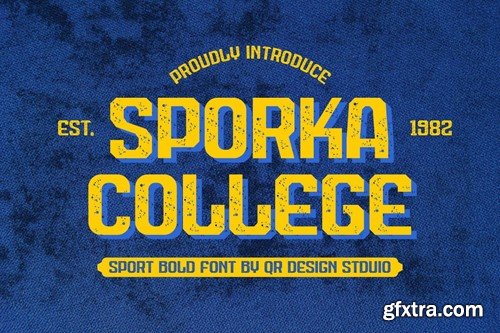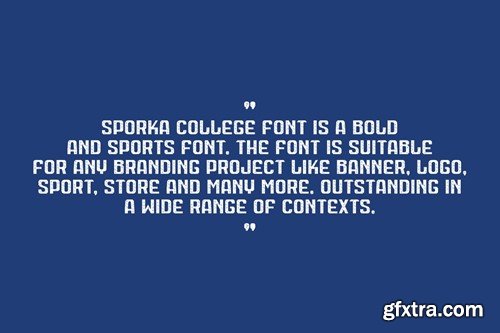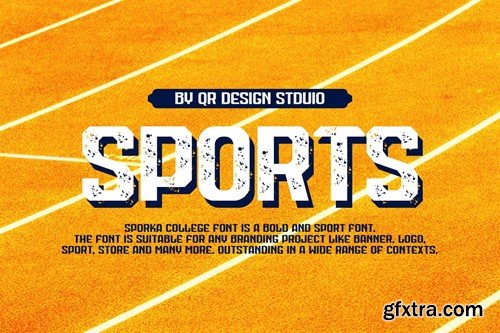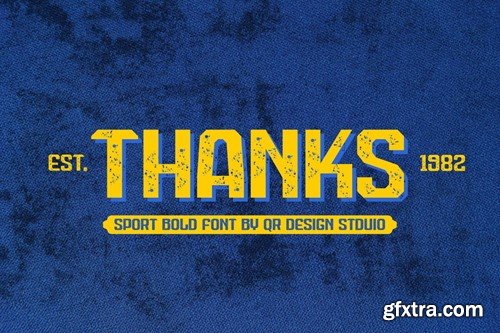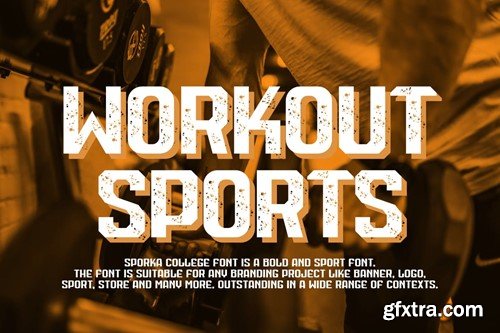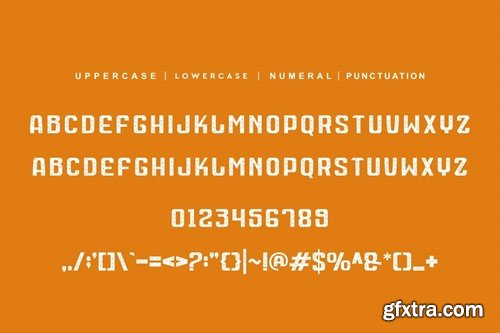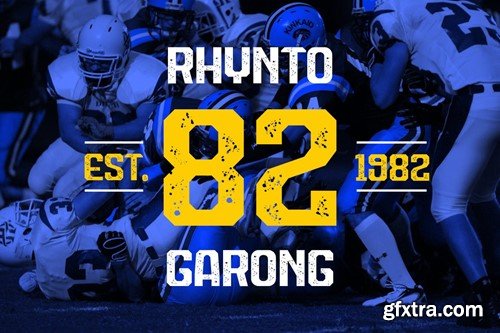
Sporka College - Sport Font MXU7LQH
Sporka College - Sport Font
Sporka College - Sport Font is a bold and authentic display font. The font is suitable for any branding project like poster, logo, sport, and many more. Outstanding in a wide range of contexts.